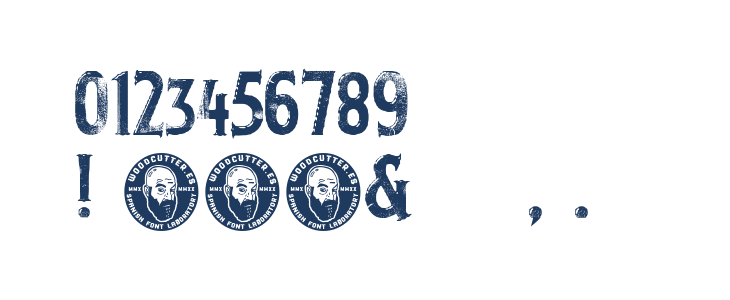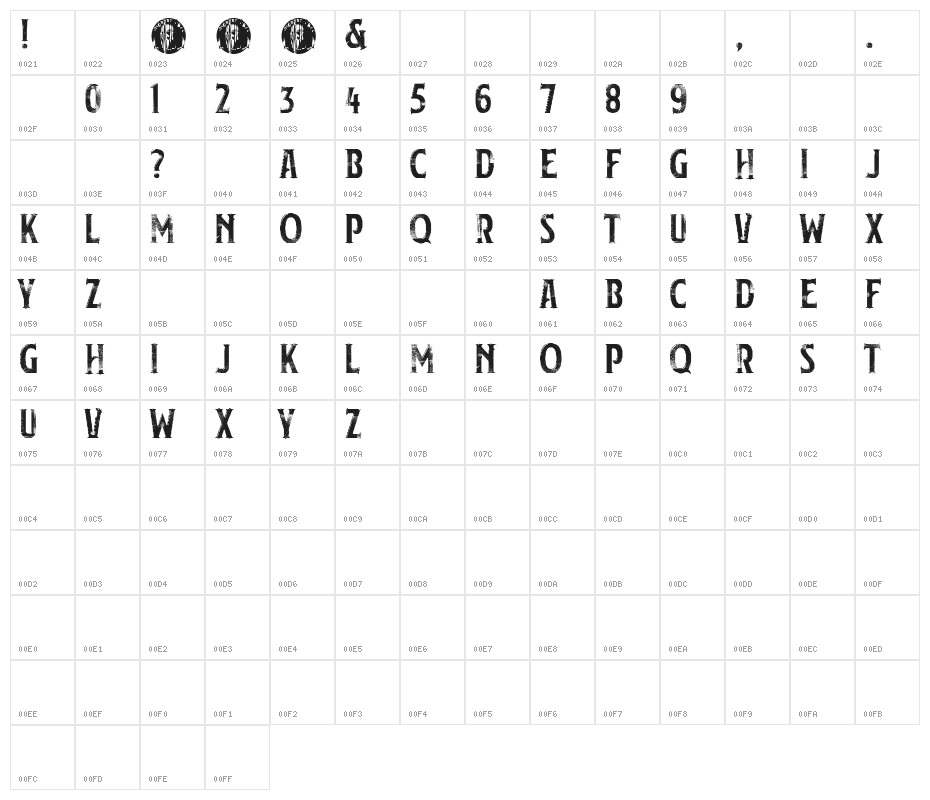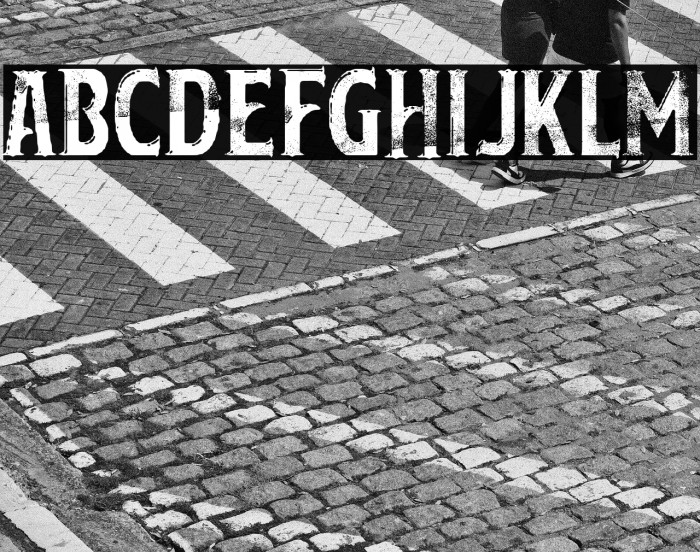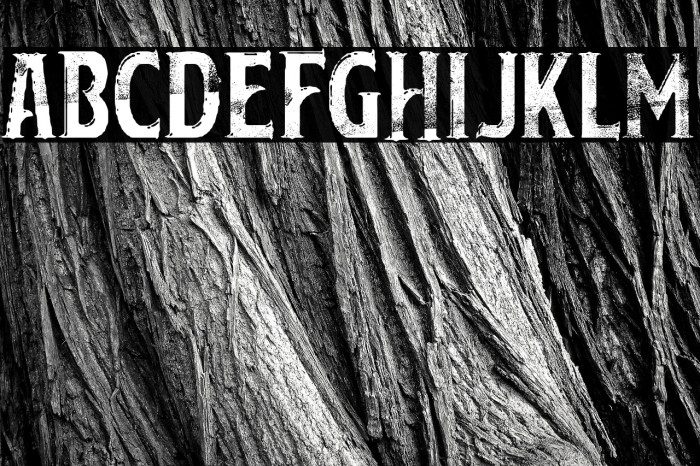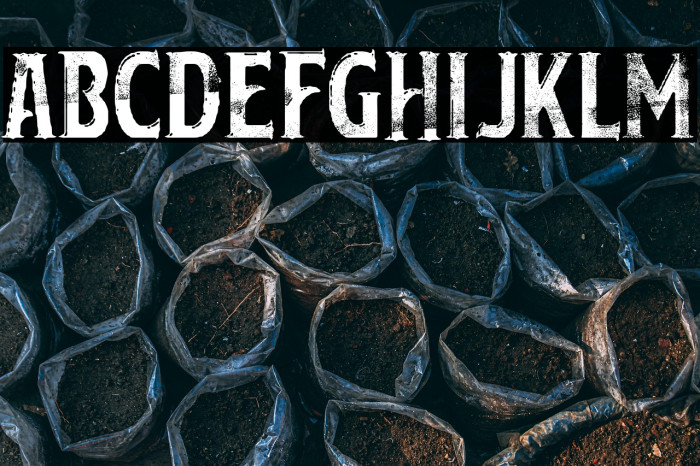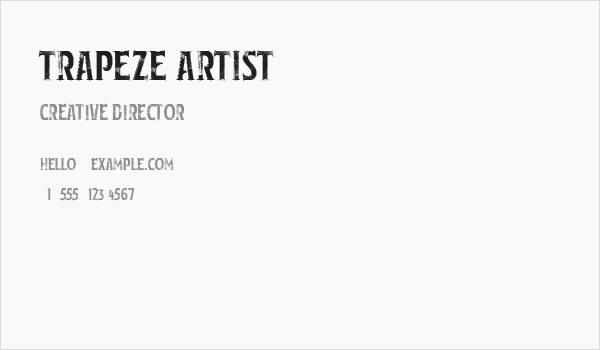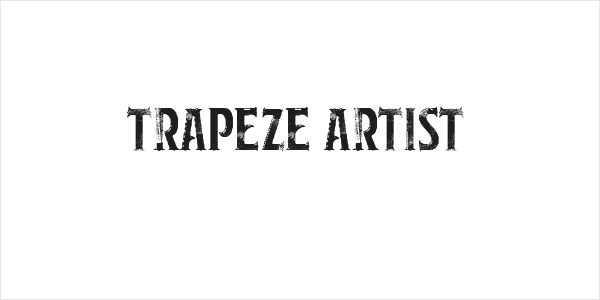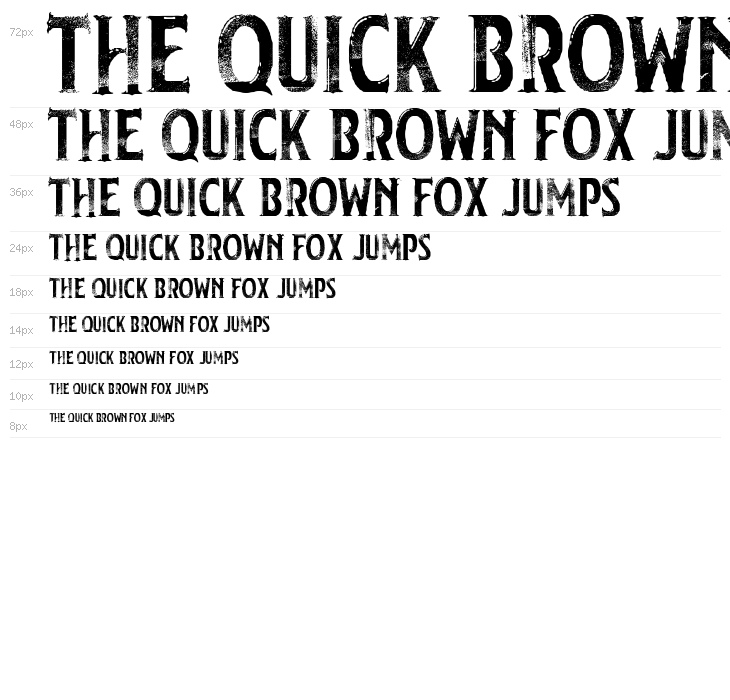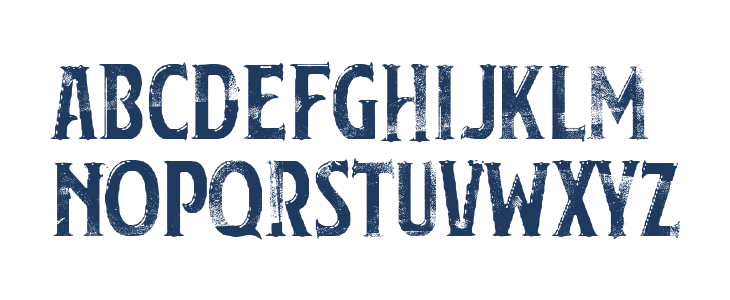
Trapeze Artist Font
Trapeze Artist Description
This font features a bold, distressed style with a vintage, circus-like aesthetic. The letters are uppercase with a textured, worn appearance, giving them a rugged and artistic feel. The numbers and special characters follow the same design, maintaining consistency across the set. The font's unique style makes it stand out, with each character exhibiting a slightly uneven texture that adds to its charm. The boldness of the letters ensures they are easily readable, while the distressed effect provides a sense of nostalgia and creativity. This font is ideal for projects that require a touch of vintage flair and artistic expression.
| Use Case | Headlines, Posters, Artistic Designs |
| Proposed Projects | Ideal for posters, vintage-themed designs, circus or carnival promotions, and artistic projects requiring a bold statement. |